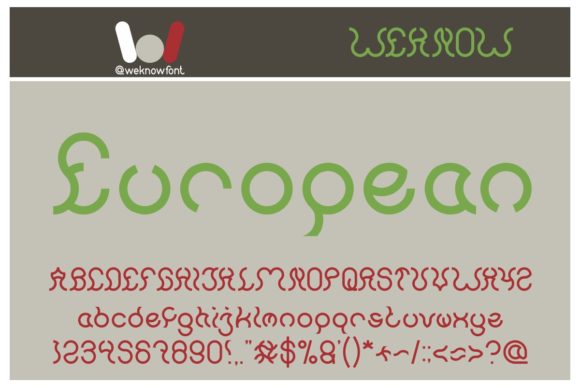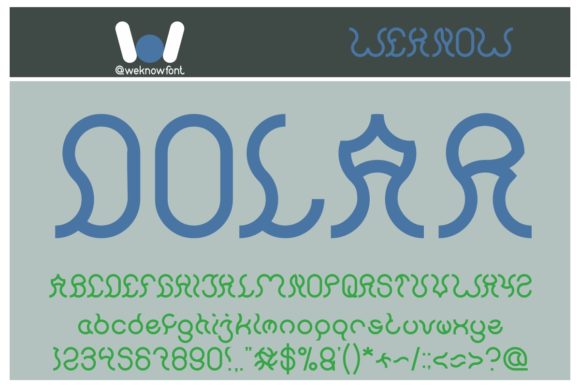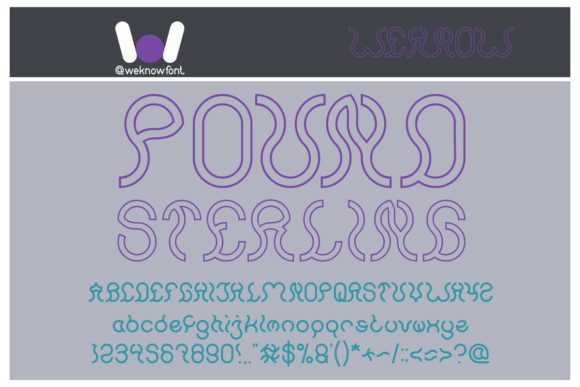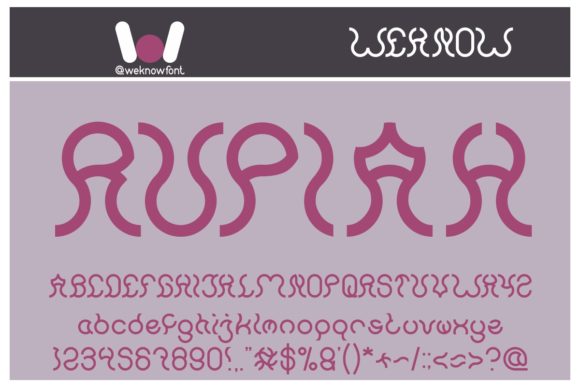
Introduction to Nine Font
Have you ever been brainstorming a creative project, staring at a blank canvas, and suddenly, a spark of inspiration hits you? That’s exactly what happened to us when we stumbled upon the Nine Font. Its quirky style and versatility made it an instant favorite, and we just can’t wait to share it with you!
As designers, we’re always on the lookout for that perfect design resource to take our projects to the next level. And trust us, the Nine Font is it. With its high-quality design and transparent background, it’s perfect for adding a touch of fun to any creative endeavor. Plus, it’s available for a free download, making it an absolute steal for designers on a budget.
Whether you’re working on a graphic design project, a logo design, or even a social media post, the Nine Font is sure to make your work stand out from the crowd. So, what are you waiting for? Dive into the world of the Nine Font and discover a whole new level of creativity!
Nine Font
- High-quality, free download font suitable for various creative projects
- Features a transparent background, ideal for graphic design and digital art
- Comes in a single weight with a large character set, supporting multiple languages
- Designed to be a versatile design resource for professionals and hobbyists alike
Honest Review: Nine Font
As a designer, I’m always on the lookout for high-quality design resources to elevate my creative projects. Nine Font caught my attention with its sleek and modern aesthetic, making it a great addition to any design arsenal.
- ✨ High-quality font options with a range of styles and weights
One of the standout features of Nine Font is its transparent background, allowing designers to easily layer it over images or other design elements without worrying about clashing colors. The free download option is also a huge bonus, making it accessible to designers of all levels.
However, I did encounter a few limitations: ⚠️
- ⚠️ Limited customization options, which may not appeal to designers who like to get creative with their typography
Overall, I’m impressed with Nine Font’s clean design and versatility. While it may not offer the most extensive customization options, its high-quality font options and transparent background make it a valuable resource for designers working on creative projects.
Nine Font
Nine Font is a high-quality design resource perfect for any creative project. This versatile font is available for free download, making it an ideal choice for designers and artists looking for a unique and stylish element to enhance their work.
Tips for Getting the Most Out of Nine Font
To get the most out of Nine Font, consider the following tips: use it in conjunction with a transparent background to create a unique and eye-catching design, experiment with different font sizes and colors to add visual interest, and use it in combination with other design elements to create a cohesive and effective design.
Nine Font is commonly used in a variety of creative projects, including:
- Presentation slides
- Document and brochure design